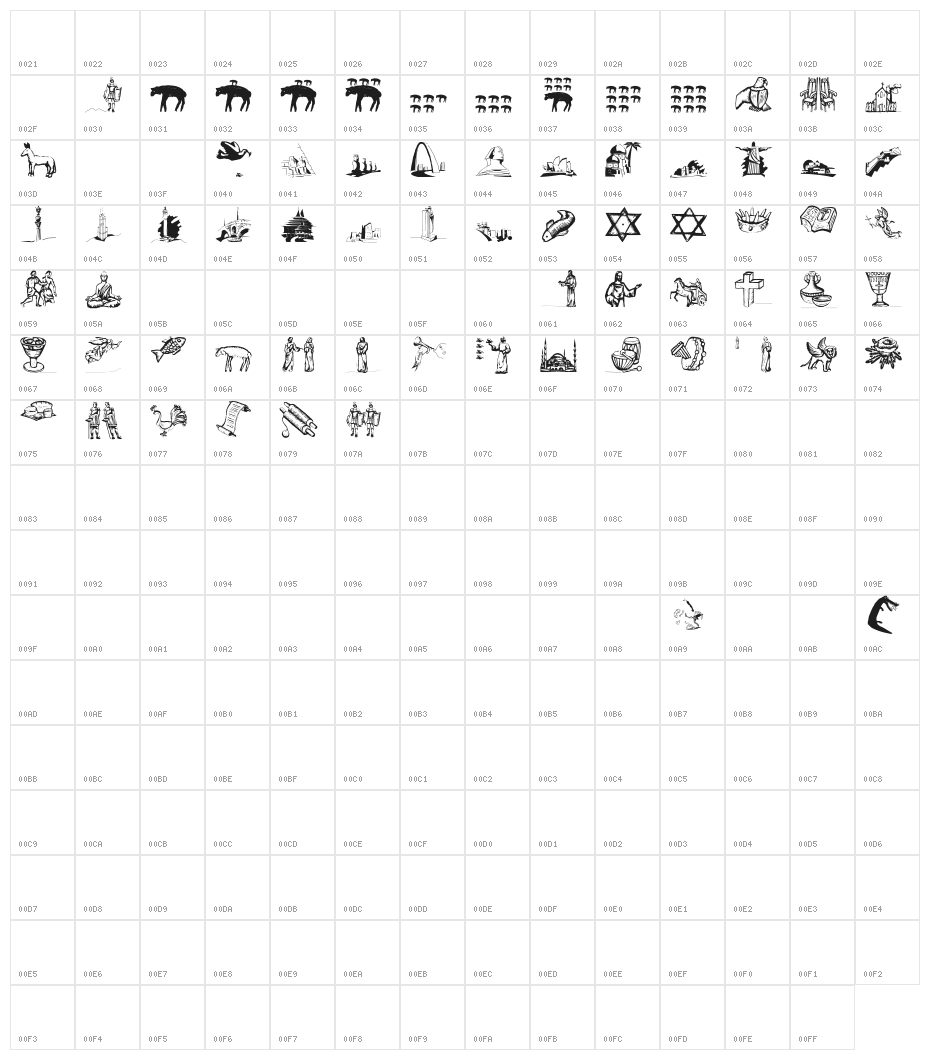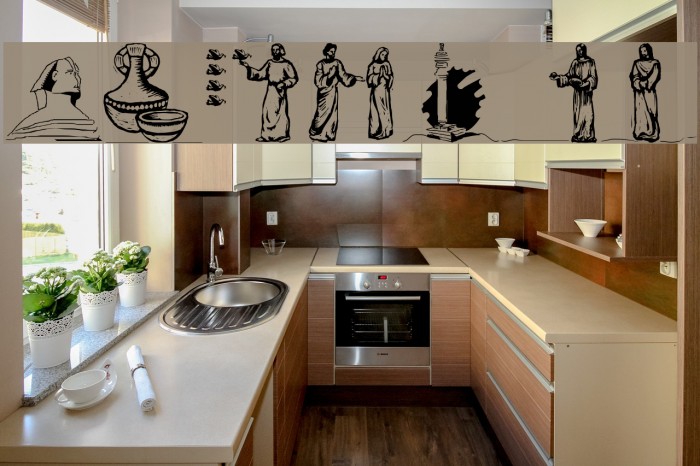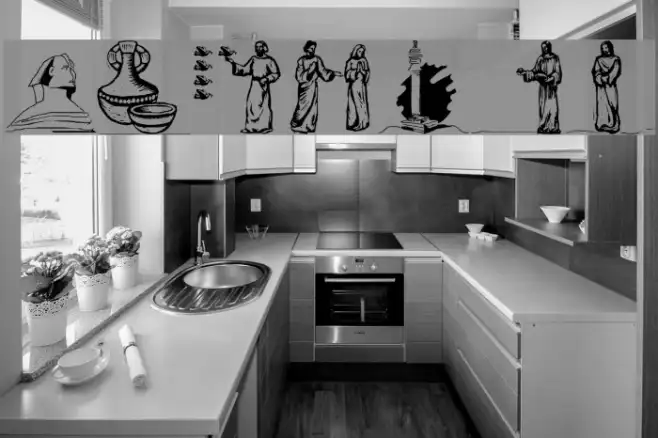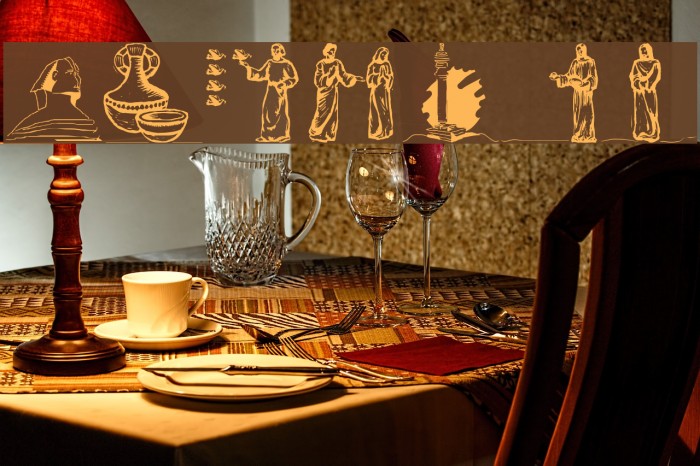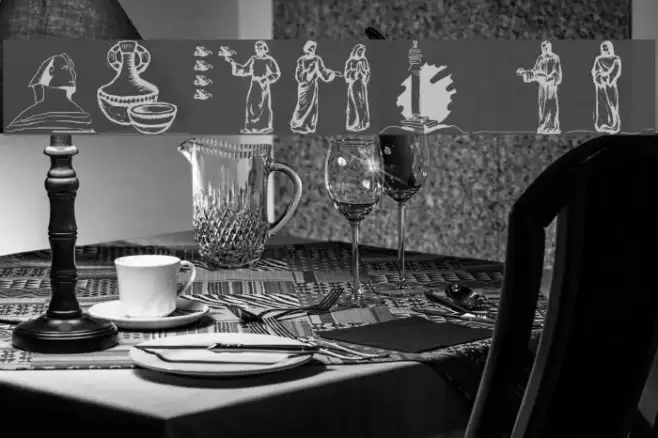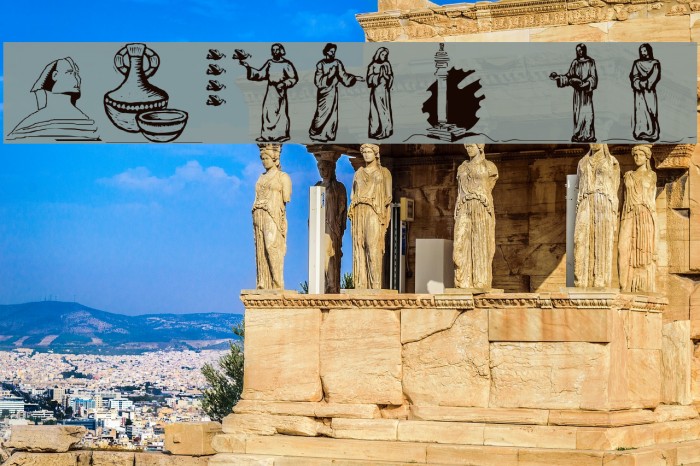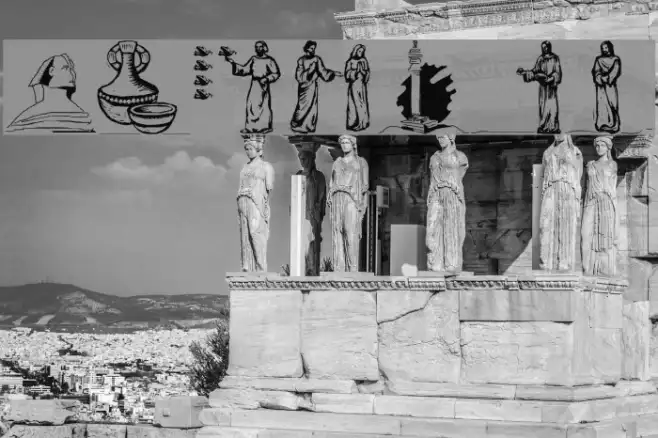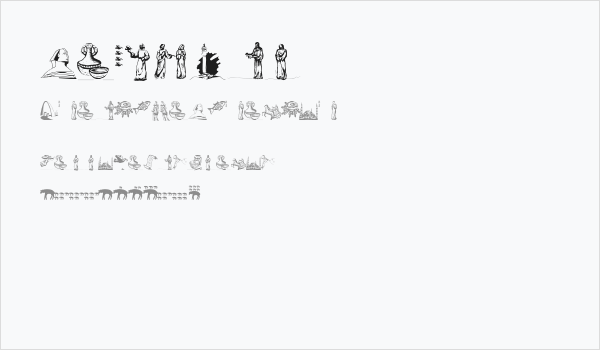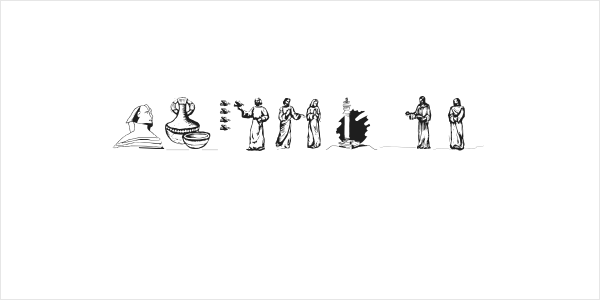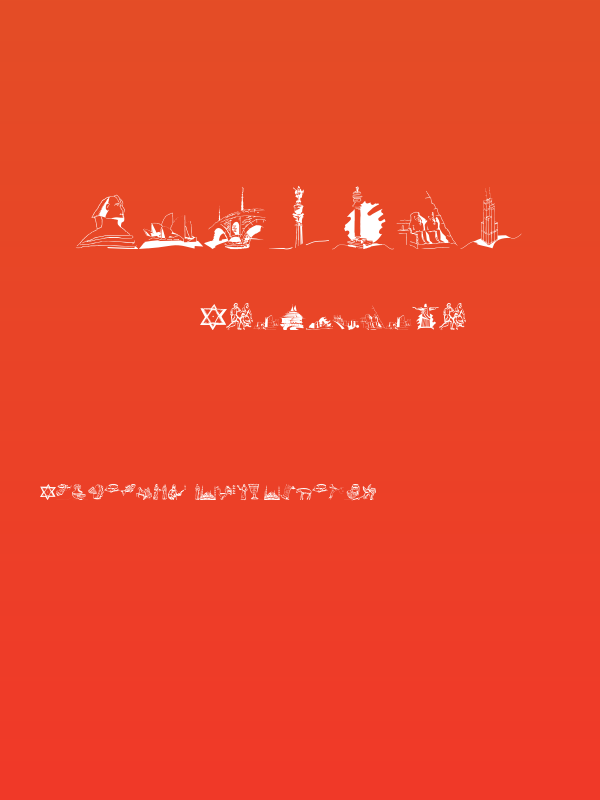
DenkMal Font
DenkMal Description
A highly decorative and illustrative font where each character is represented by a detailed drawing of monuments, religious symbols, historical figures, or animals, rather than traditional letterforms. The glyphs are intricate and visually complex, making them more pictorial than typographic.
| Overall Style | Decorative, Illustrative, Thematic |
| Use Case | Logos, Posters, Art projects, Educational materials |
| Proposed Projects | Educational posters, museum exhibits, themed event invitations, cultural presentations, or creative art projects. |